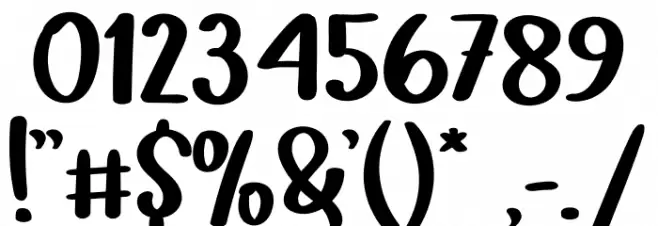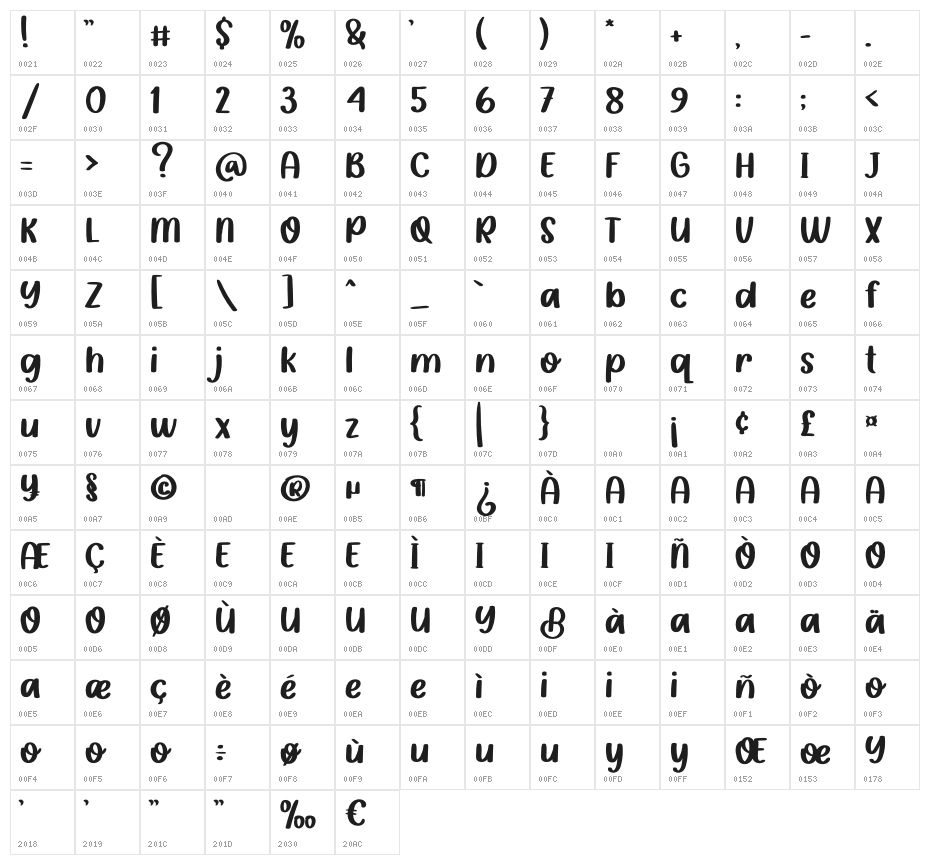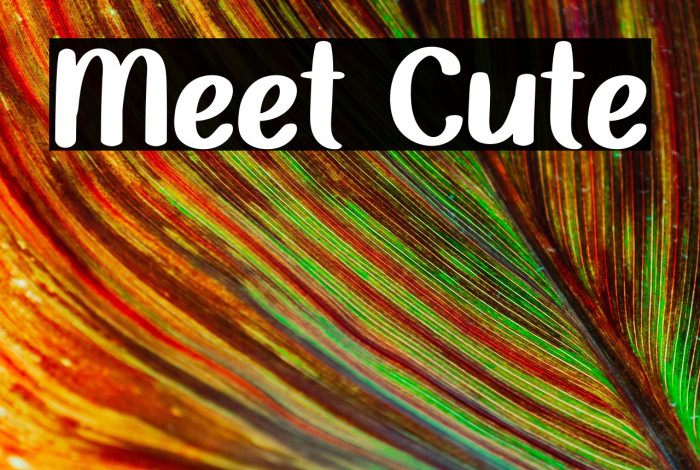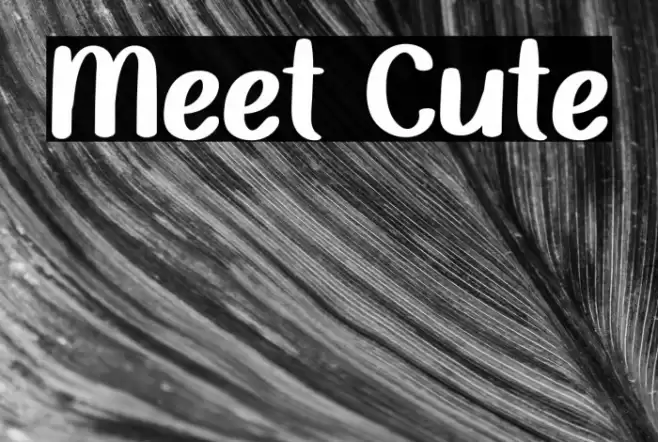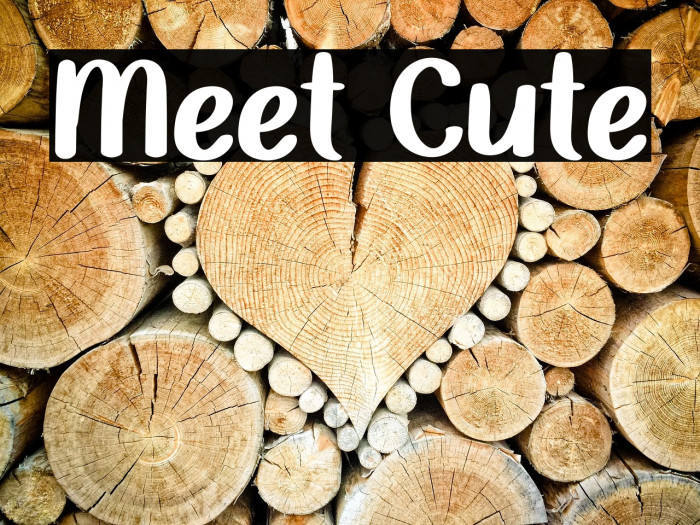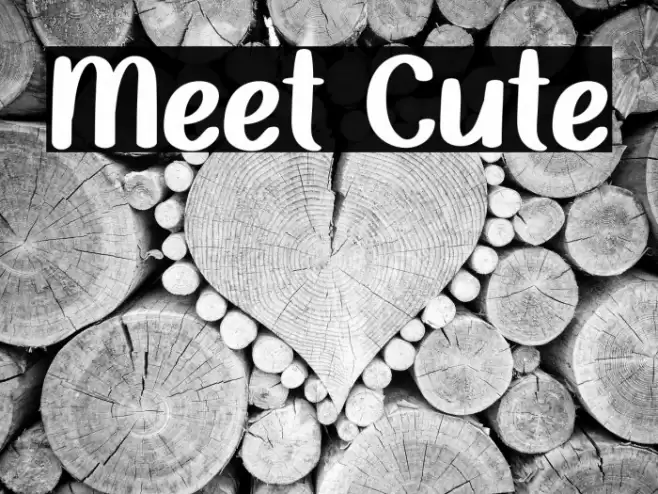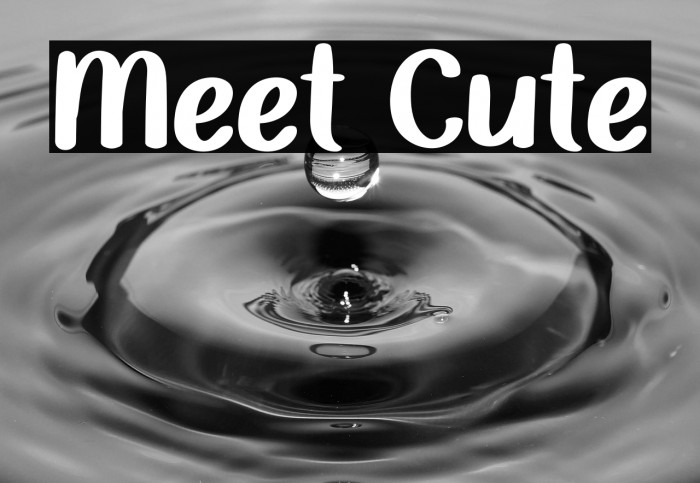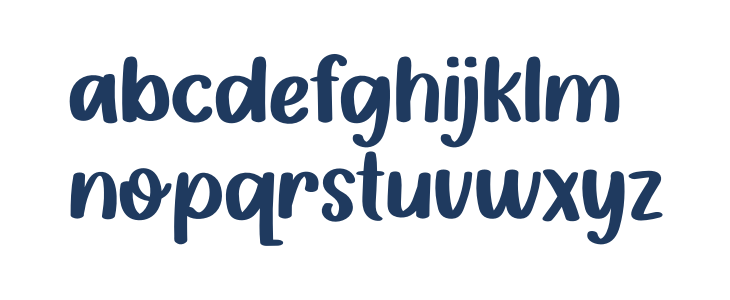
Meet Cute Font
Meet Cute Description
This font features a playful and rounded style, characterized by its smooth curves and friendly appearance. The letters are bold and slightly condensed, giving them a strong presence while maintaining a casual and approachable feel. The uppercase and lowercase letters are well-balanced, with consistent stroke widths that provide a harmonious look. The numerals and special characters complement the alphabet with the same rounded and bold characteristics, ensuring a cohesive design. This font is ideal for projects that require a touch of whimsy and warmth.
| Proposed Projects | Perfect for children's books, playful branding, greeting cards, and social media graphics. |